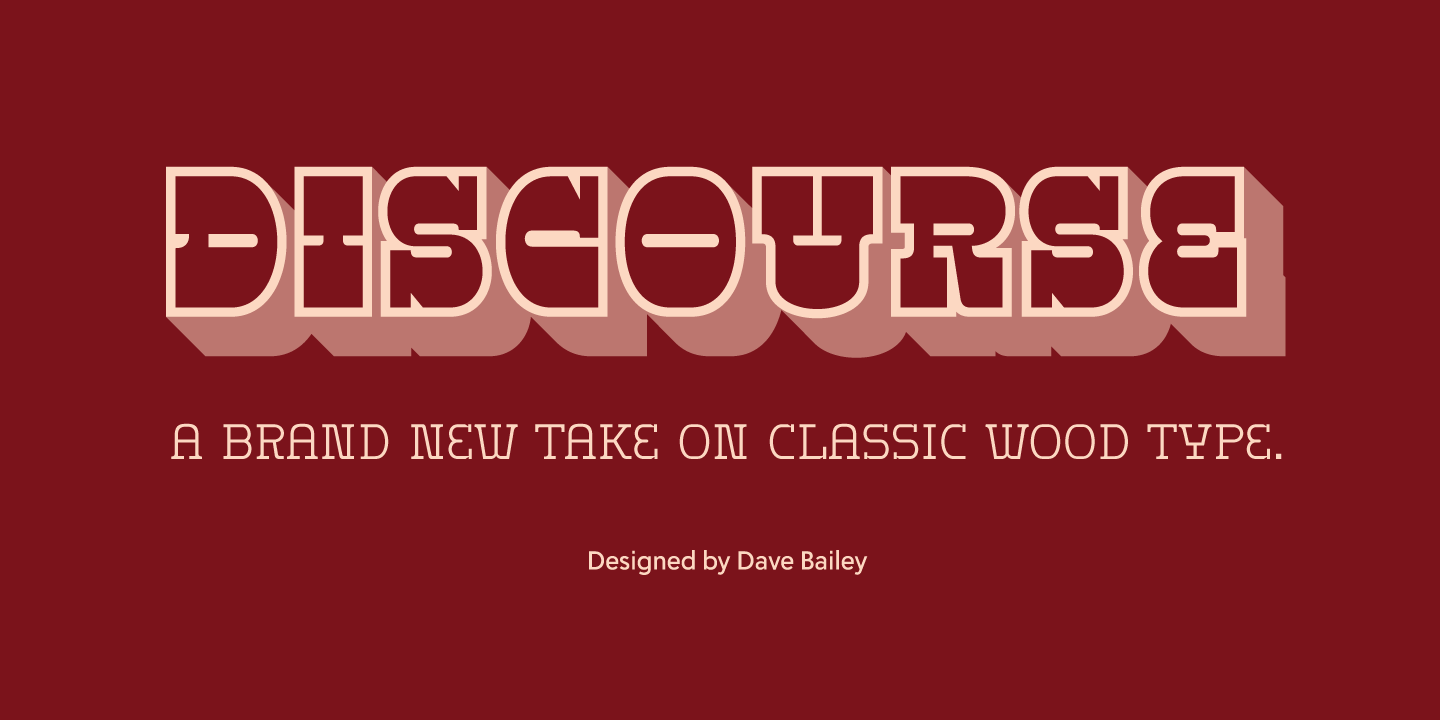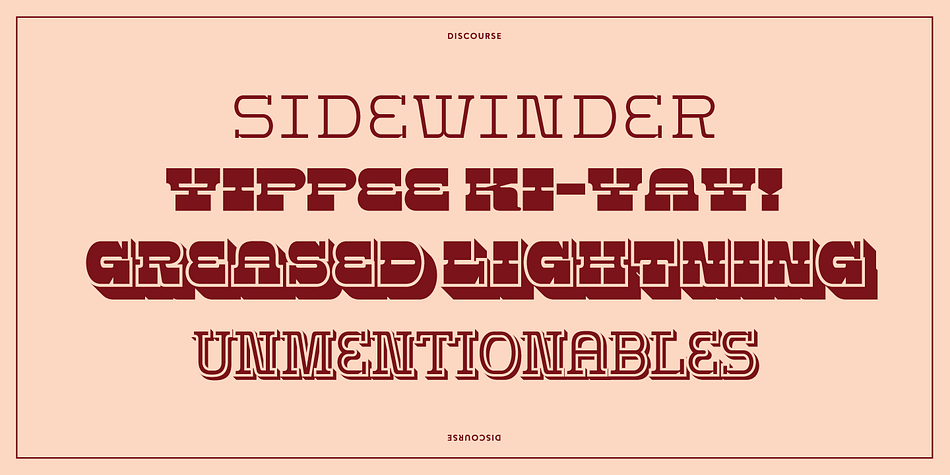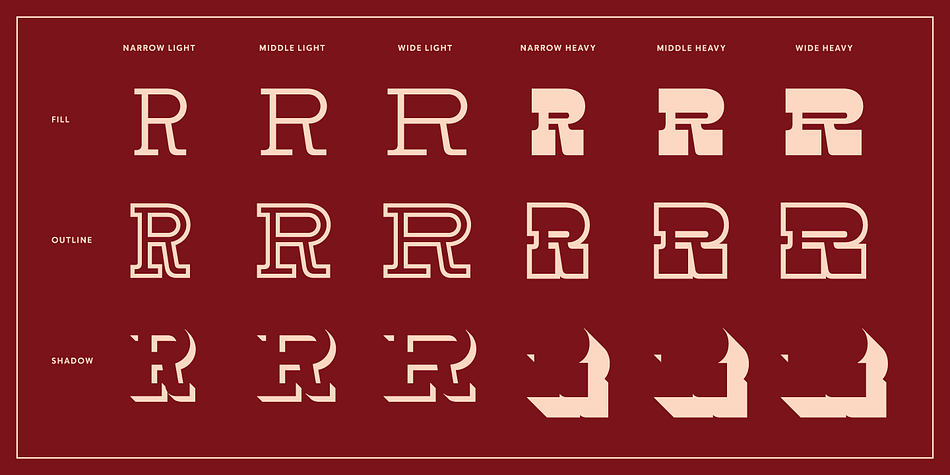
DISCOURSE
Designed by Dave Bailey, Discourse is a display, display slab and western font family. This typeface has twenty-four styles and was published by Delve Fonts.
Discourse is a type superfamily comprised of 24 fonts that was first visualized when designer Dave Bailey heard a preview of the song “Dust and Buried Bones: A Western Fantasy” by Opiate Eyes. The title alone projected vivid ephemeral images of gritty western films and the Oregon Trail.
Although Discourse references classic reverse-contrast wood type associated with the era of the Wild West, it re-interprets conventional forms into something with a more unique and distinctly neo-modern feel.
The three heavy weights of Discourse concentrate on creating the highest visual impact with the darkest color possible and tight spacing. The thick horizontal strokes create strong word shapes and the consistent color and rhythm creates a pleasantly even block of text.
The three light weights are the opposite extreme, completely shedding the weight of the horizontal strokes that characterizes the heavy weights.
Every one of the Light and Heavy weights have their own shadow, outline and fill versions that can be lay­ered for a dazzling chromatic effect.